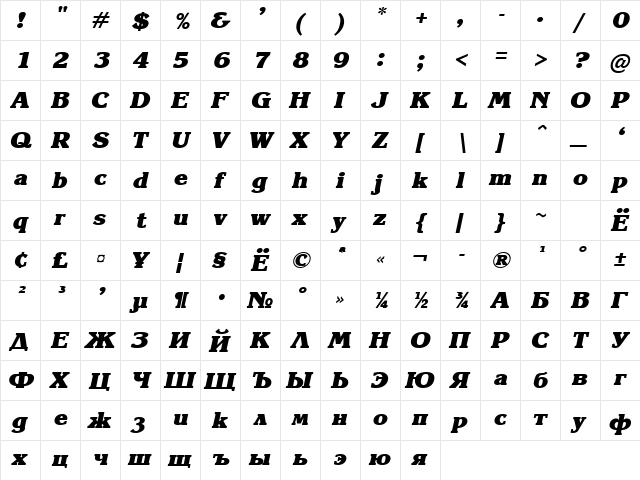
Karelia Extra Bold Italic Font Preview
Design Context for Karelia Extra Typeface
Karelia Extra is a composed and adaptable typeface that performs quietly and consistently across a wide range of design contexts. Its italic angle brings a sense of urgency and motion to the letterforms. The heavy weight commands attention and anchors typographic hierarchies.
Pro Tip: Try Karelia Extra for annotation and caption copy alongside an upright companion — the contrast in angle creates a dynamic but ordered typographic system.